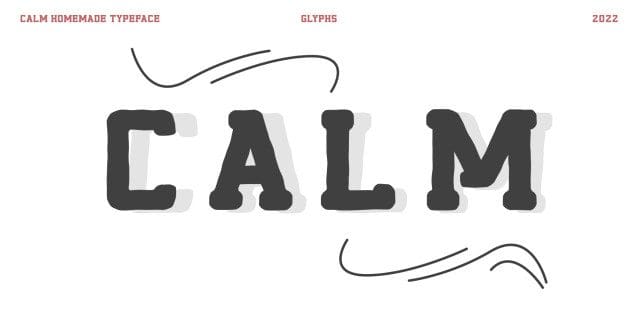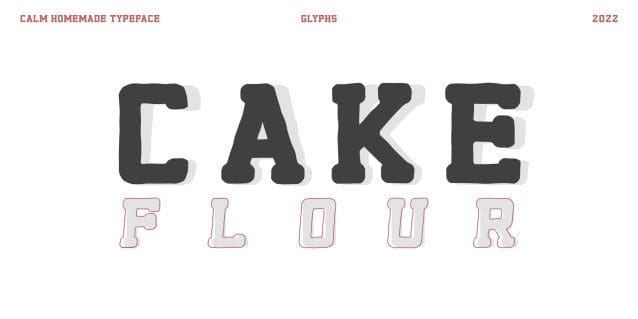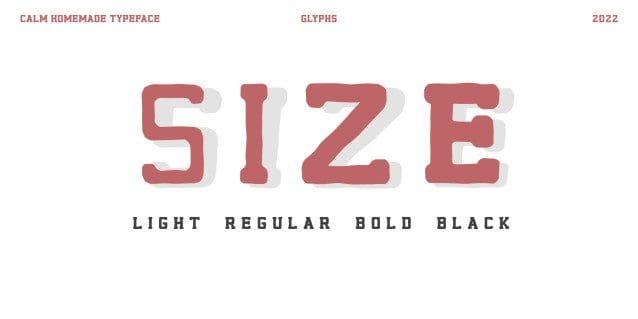
Calm Font Family
Calm Font Family is a versatile slab font family with a touch of serenity and modernity. It strikes a perfect balance between elegance and sophistication, making it a delightful addition to any project. Its fancy and playful style adds a touch of creativity, while the cool and understated shapes elevate its visual appeal. Calm Handmade proves to be an ideal choice for a variety of design projects, creating captivating signatures, eye-catching album covers, and distinct logos and branding. Moreover, its readability and adaptability ensure seamless integration into magazines, social media posts, advertisements, and an array of other design ventures, showcasing its versatility across diverse creative endeavors.
Classification: Display Fonts, Retro / Vintage Fonts, Slab Serif Fonts